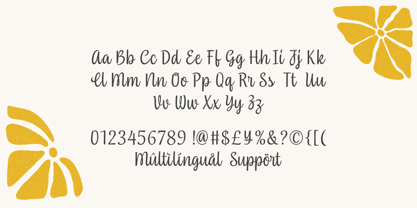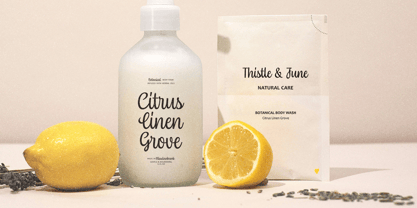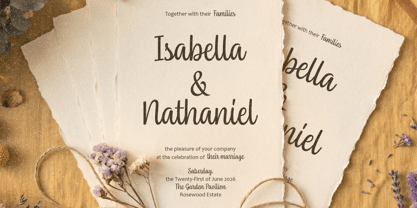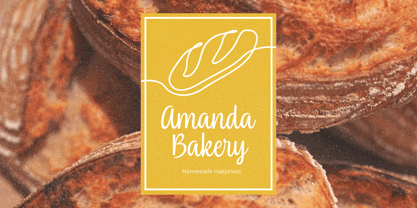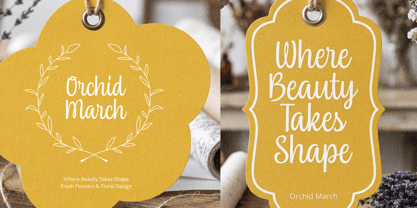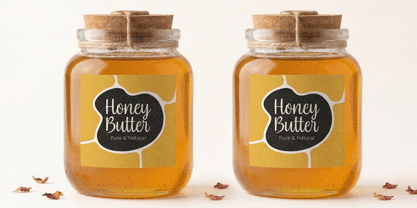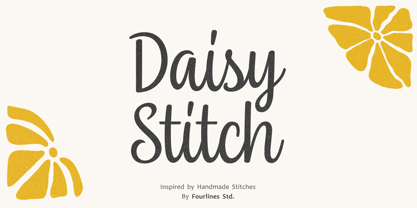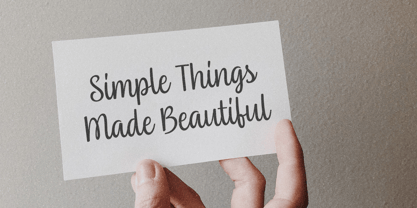
Daisy Stitch
Die Schriftfamilie Daisy Stitch wurde von Zain Fahroni entworfen und von Four Lines Std veröffentlicht. Daisy Stitch enthält 1 Stile. Mehr über diese Familie
Daisy Stitch is a handwritten script font designed with flowing letterforms, balanced proportions, and excellent readability. Each character features a natural appearance with soft strokes that create a warm, friendly, and handcrafted feel.
This font is versatile enough for a wide range of design projects, including branding, logos, product packaging, labels, invitations, stationery, and digital content. Its character blends effortlessly with modern, minimalist, rustic, and cottagecore design styles.
Daisy Stitch includes uppercase and lowercase letters, numerals, punctuation, and multilingual support, making it suitable for a variety of languages and creative applications.
Designer: Zain Fahroni
Foundry: Four Lines Std
Four Lines Studio is a graphic design studio founded in 2019 by Zain Fahroni in Bandung City, Indonesia. The studio's name is inspired by a friendship story that is close to the founder's heart. Our work is heavily influenced by this friendship, which has given birth to an identity that is associated with fun, playful, and groovy elements. A key area for the studio is typography, with a specific focus on developing fonts that emphasize minimalism and versatility.